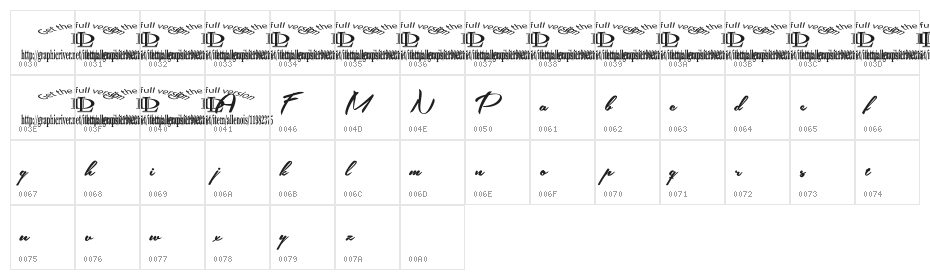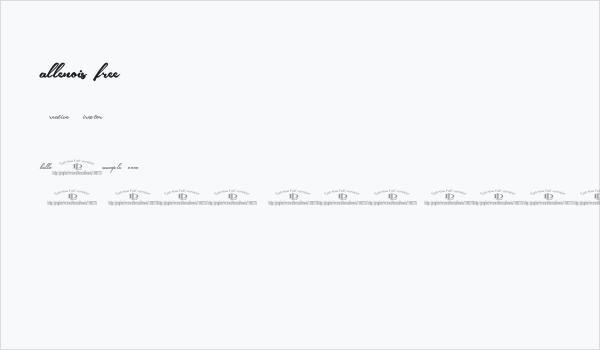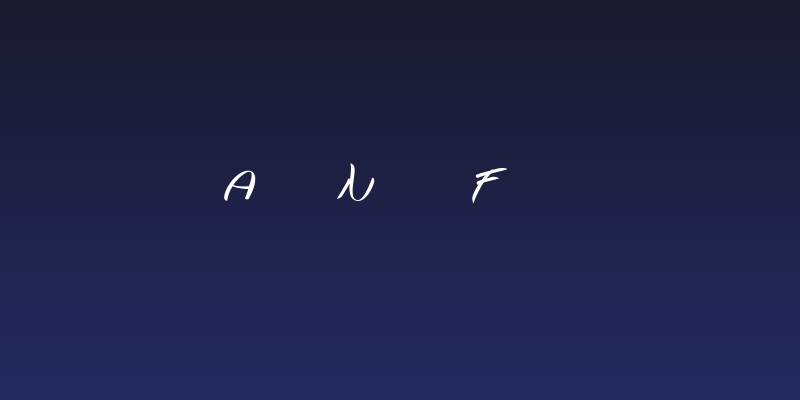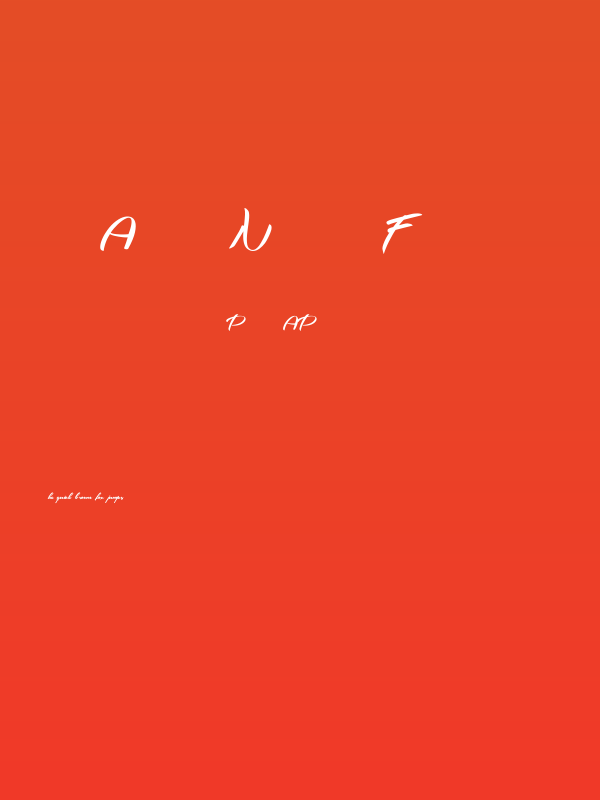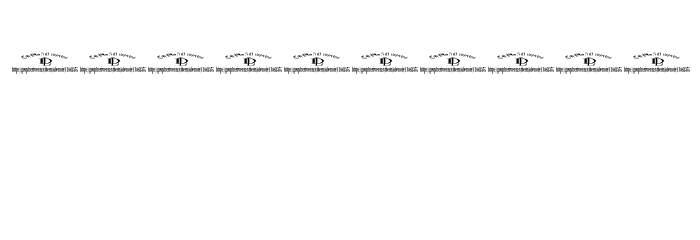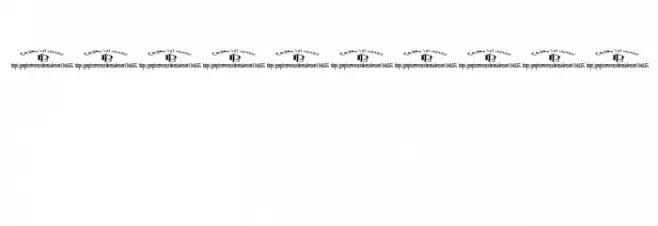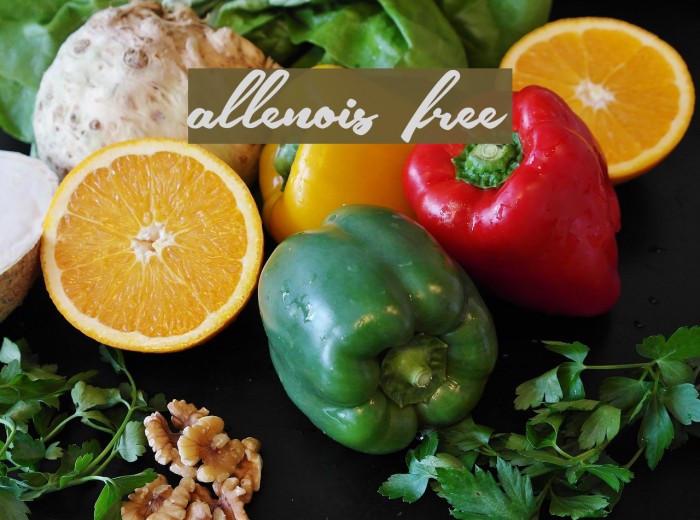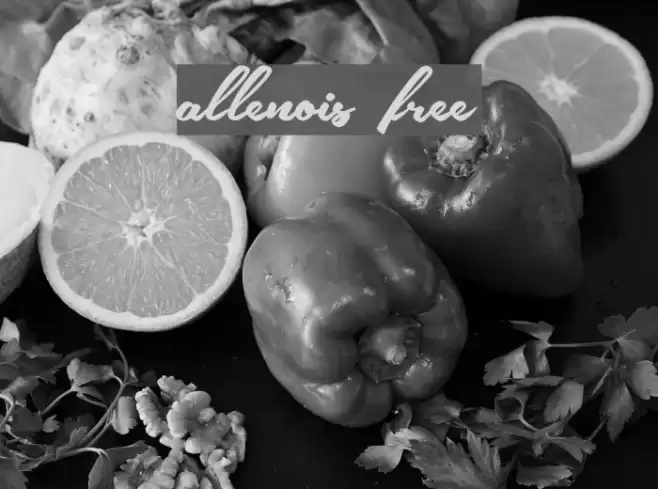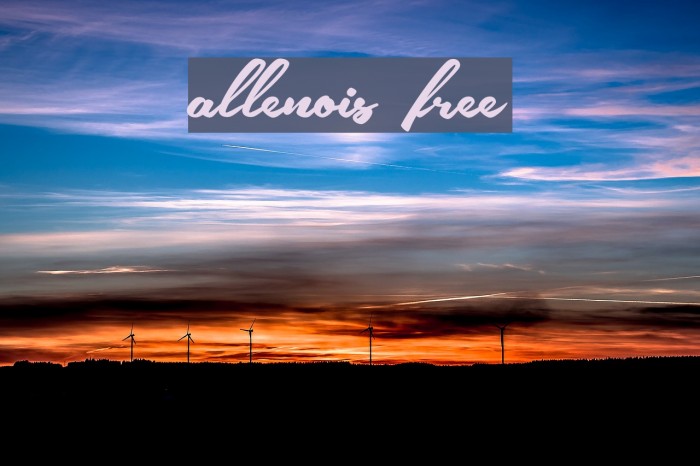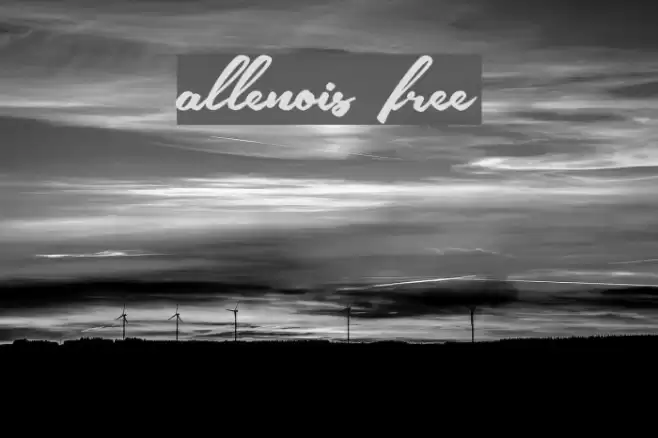
allenois free Font
allenois free Description
This font exhibits a flowing, cursive style with elegant, sweeping strokes that give it a handwritten appearance. The uppercase letters are bold and slightly slanted, while the lowercase letters maintain a consistent flow, enhancing readability. The characters are well-spaced, providing a balanced look. The font's design is both sophisticated and approachable, making it suitable for a variety of creative applications. Its script-like nature adds a personal touch, ideal for projects that require a sense of elegance and warmth.
| Overall Style | Elegant, Handwritten |
| Proposed Projects | Ideal for wedding invitations, greeting cards, personal branding, and elegant logo designs. |